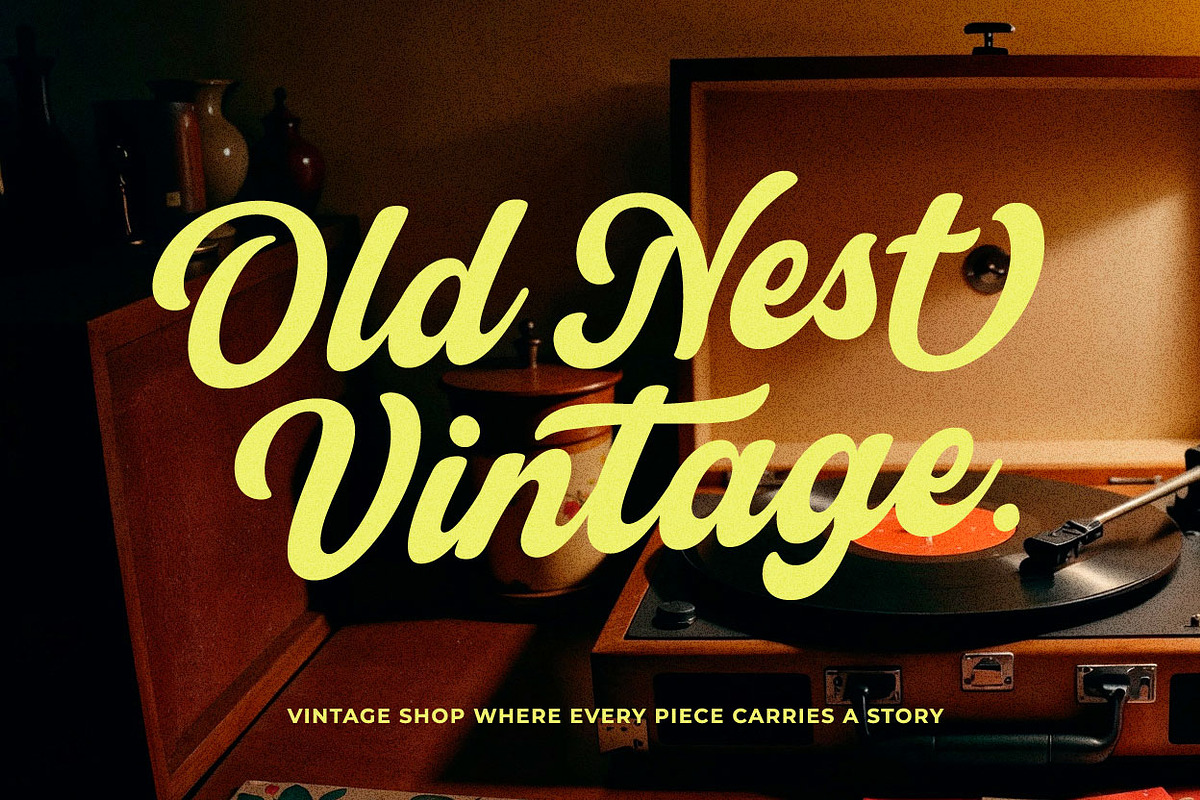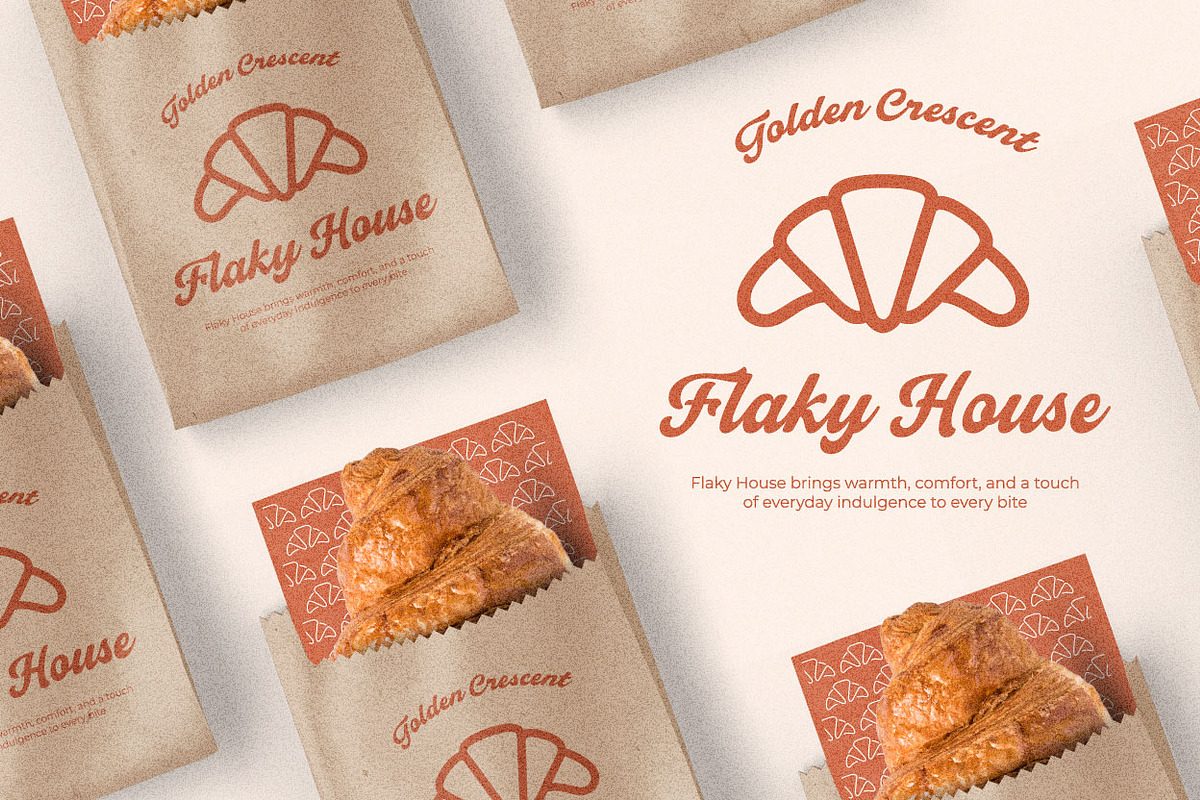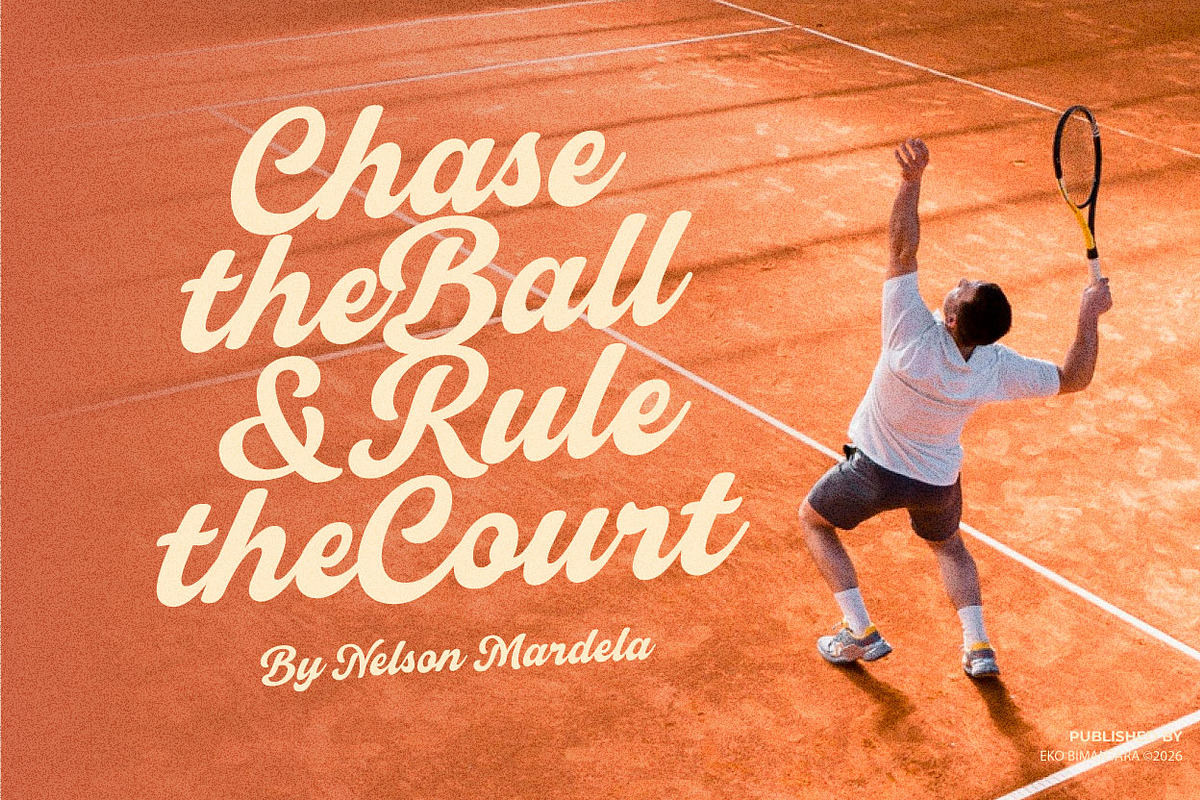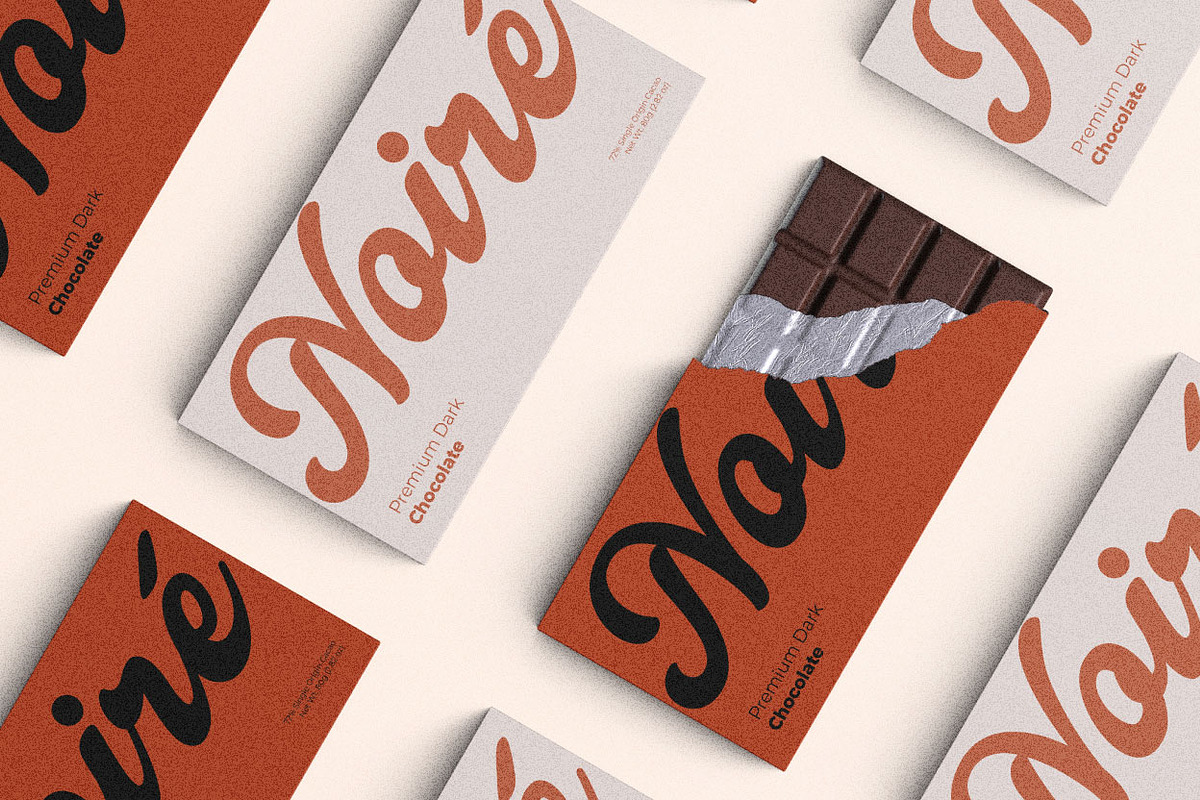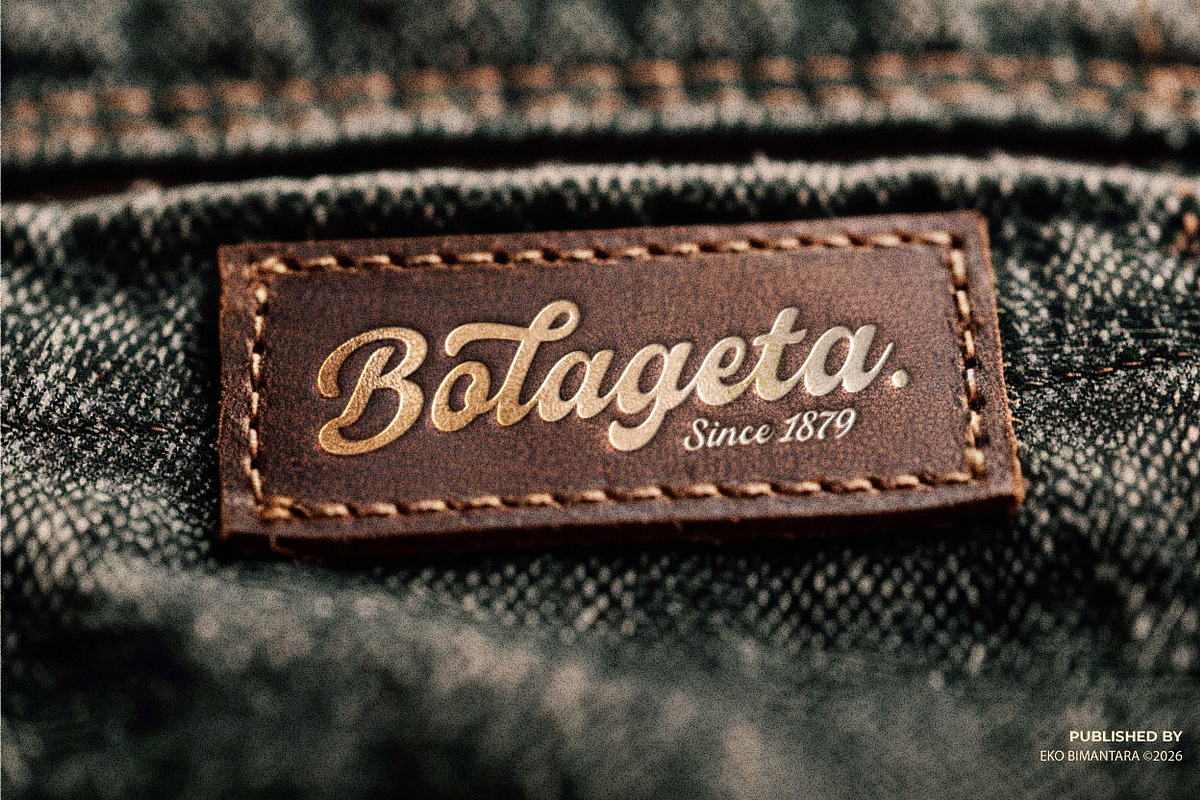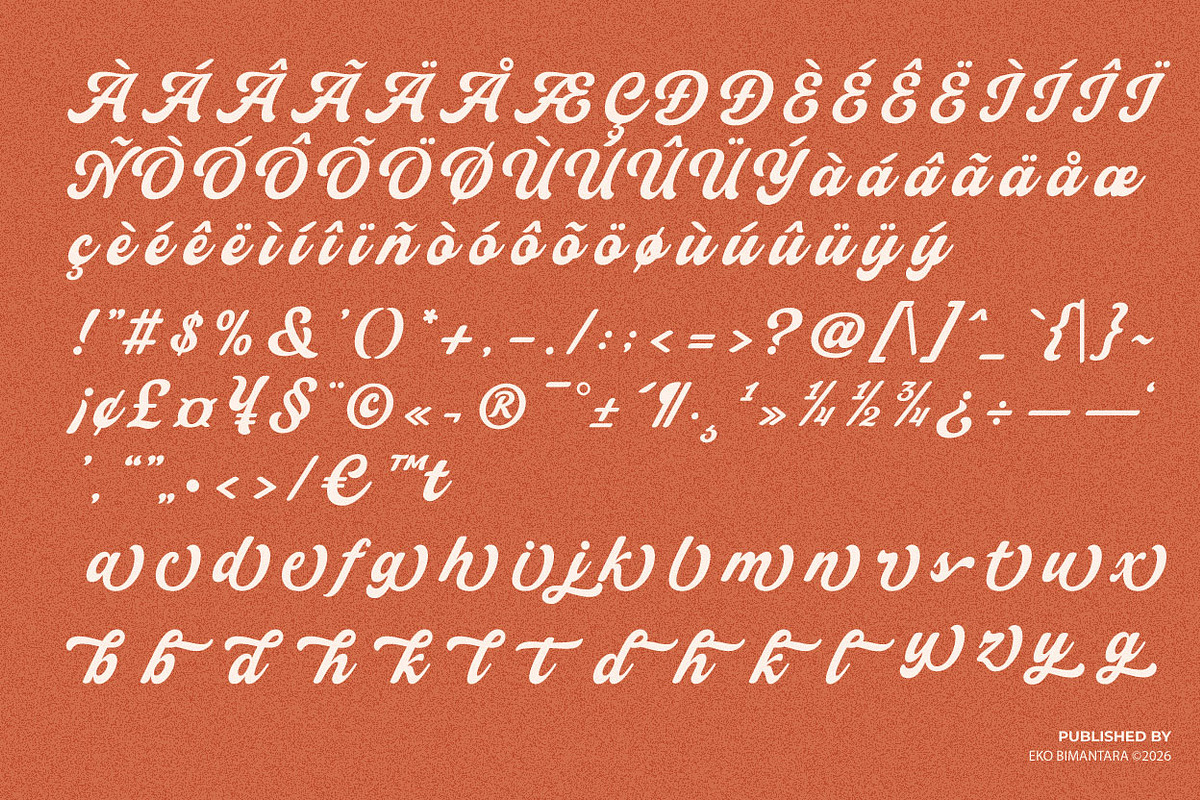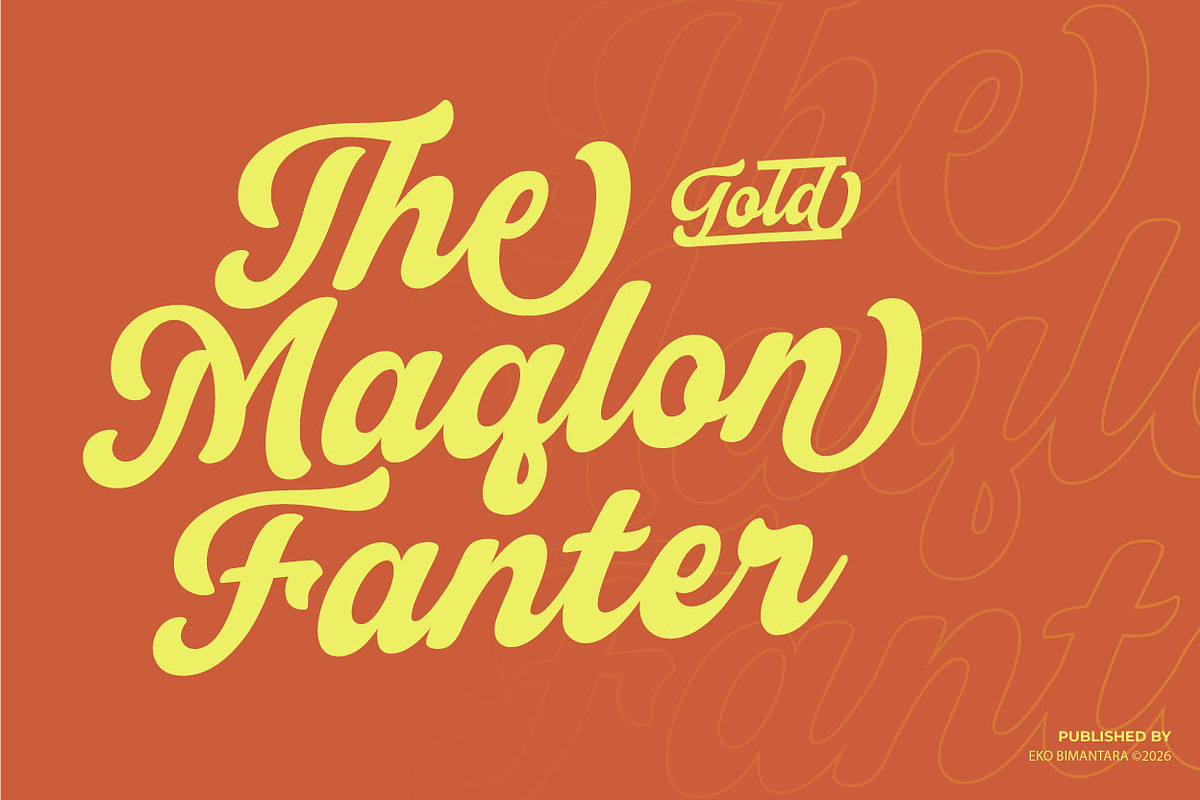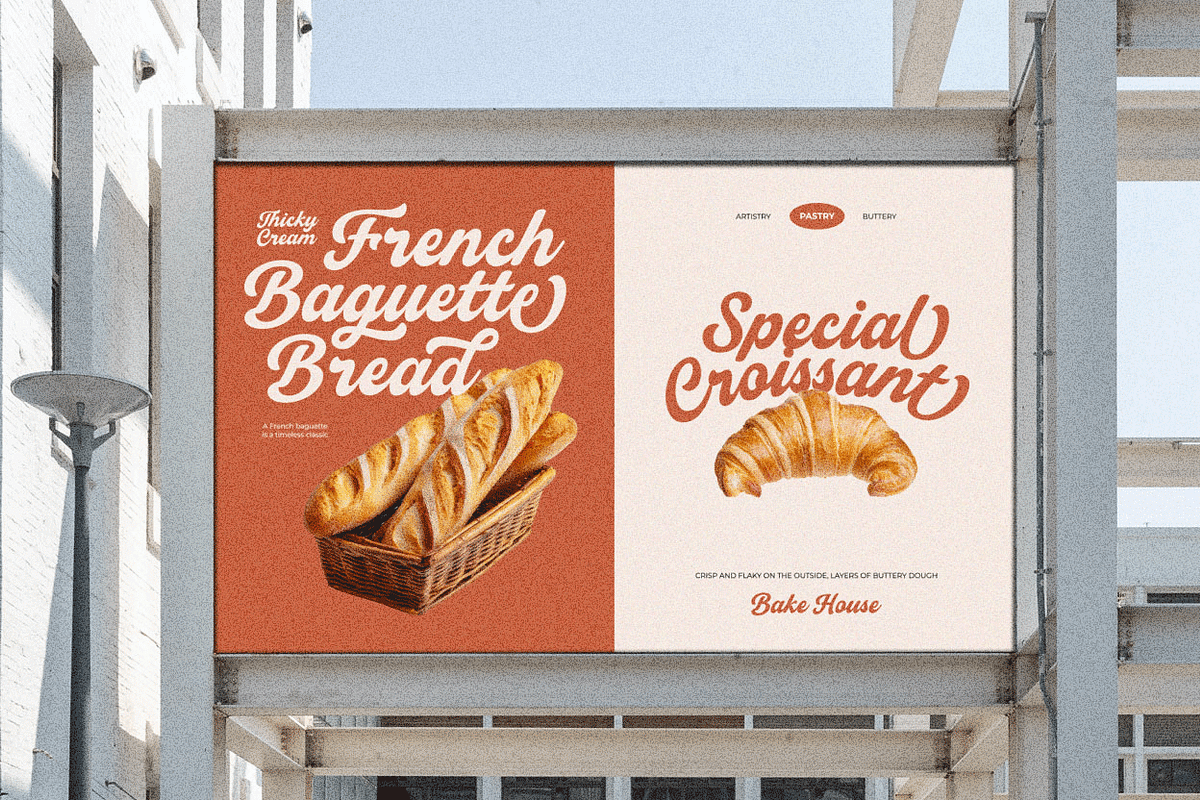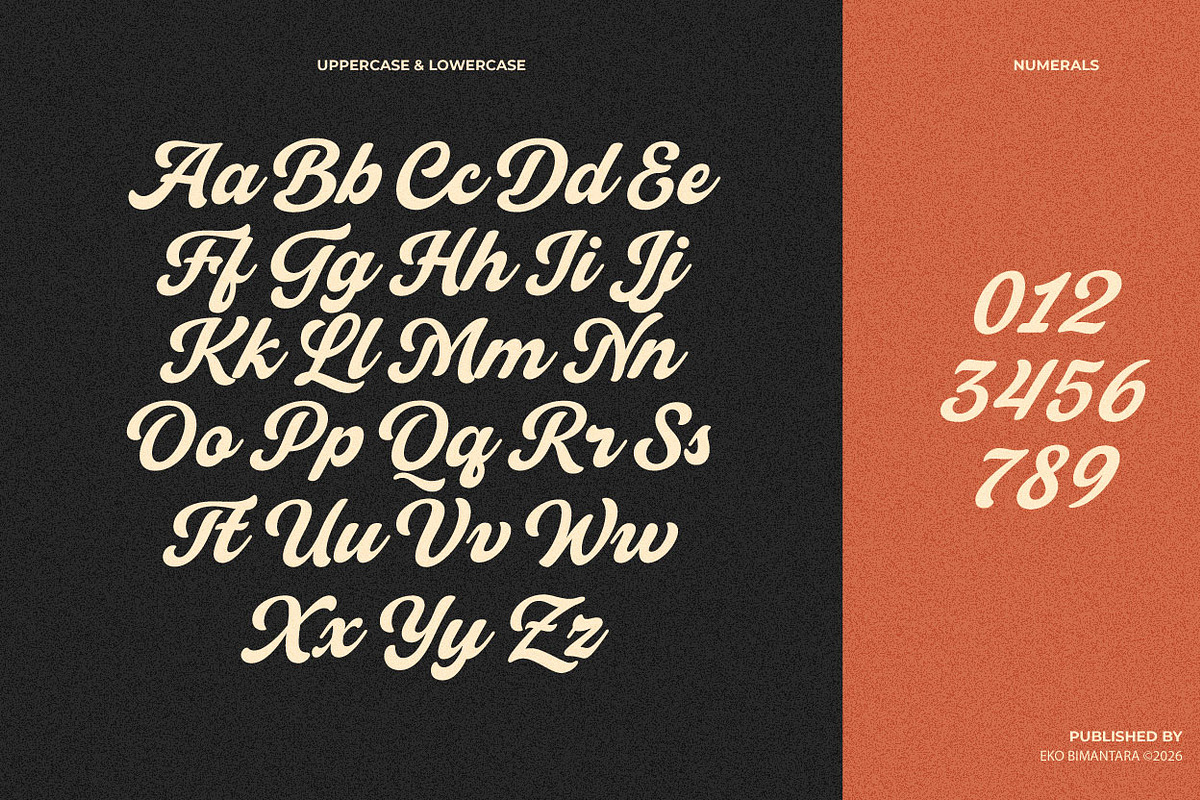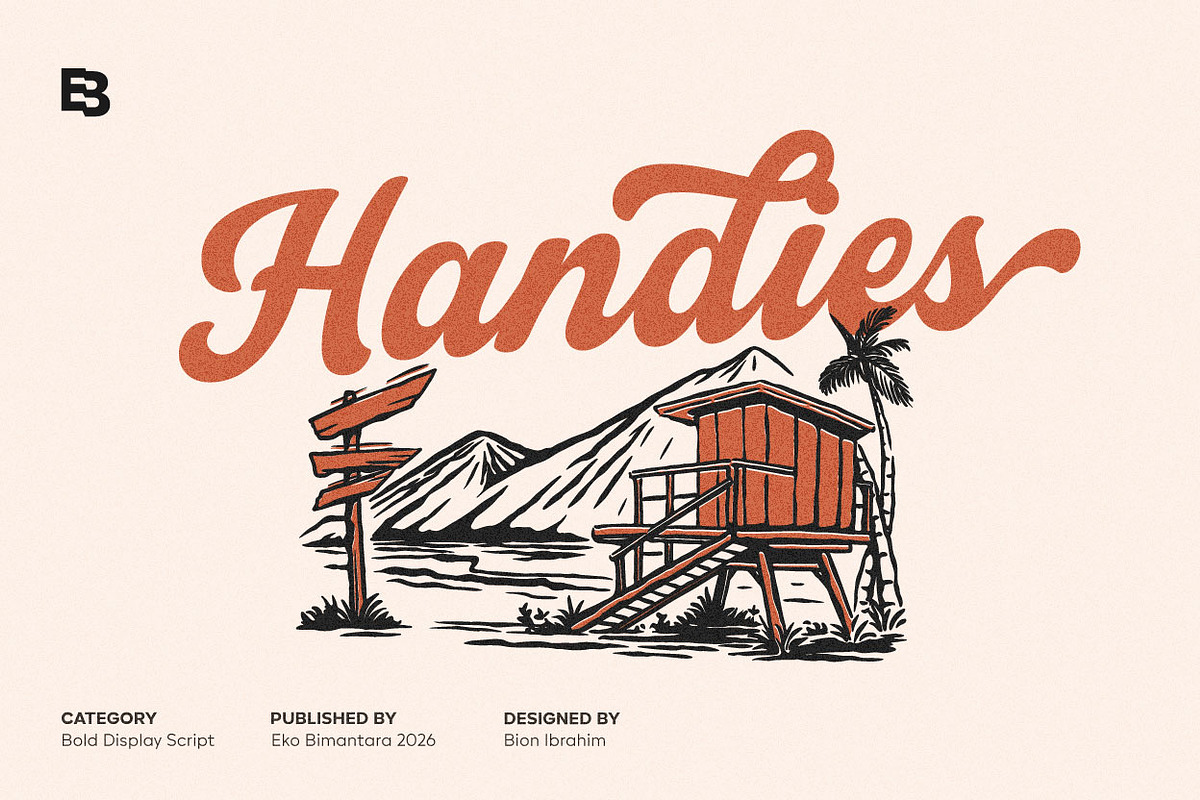
Handies; Bold Display Script
Handies is a bold display script typeface that captures a lively, retro-inspired personality with a modern handcrafted touch. Its smooth, flowing letterforms are complemented by confident strokes and playful curves, creating a strong visual presence while maintaining a friendly and approachable tone. The subtle texture and organic rhythm evoke a sense of authenticity, making it ideal for branding, signage, packaging, and lifestyle-oriented designs. Handies shines in large-scale applications, where its expressive character and dynamic movement bring warmth, energy, and a distinctive handcrafted charm to any composition.